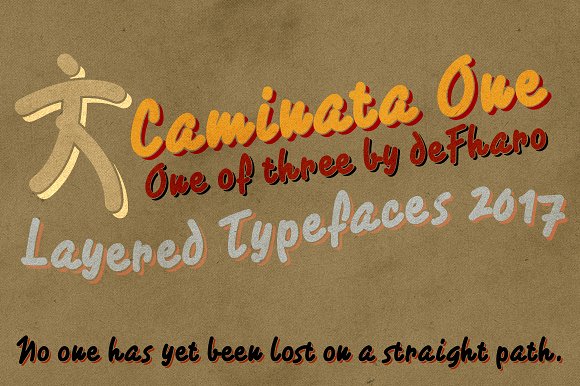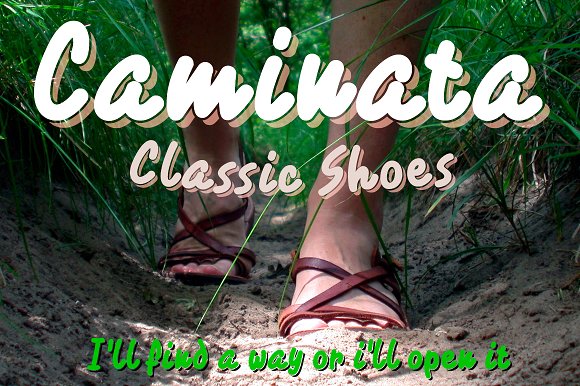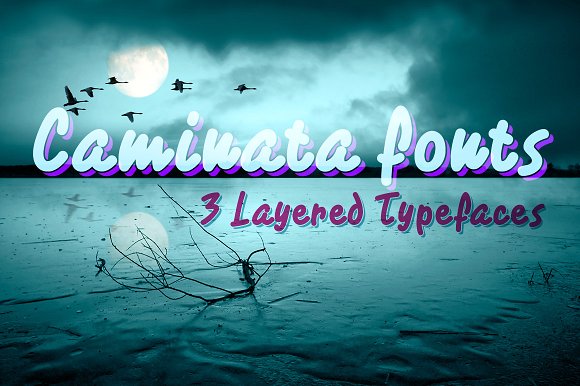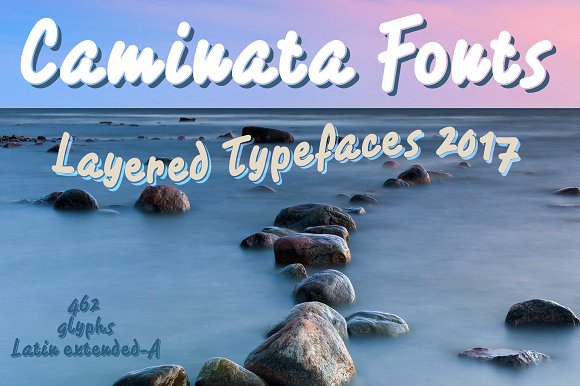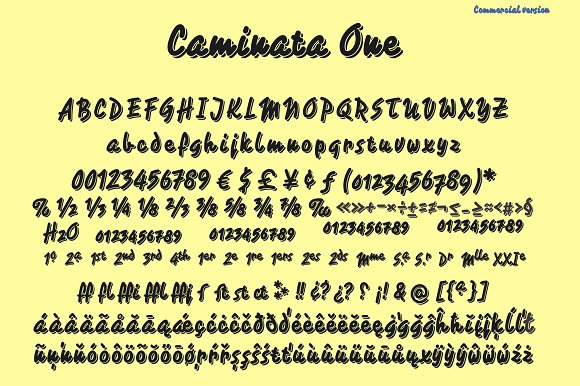
Caminata fonts
Caminata- are three thick handwritten fonts layered with shade, made with a fat-tipped ballpoint pen, retro and elegant, are perfect for designing posters, flashy headlines, commemorations, invitations or any text where a contrast is sought manual style compared to other neutral fonts such as Sans or Serif.